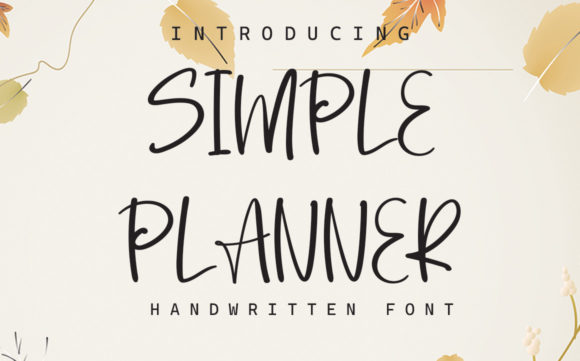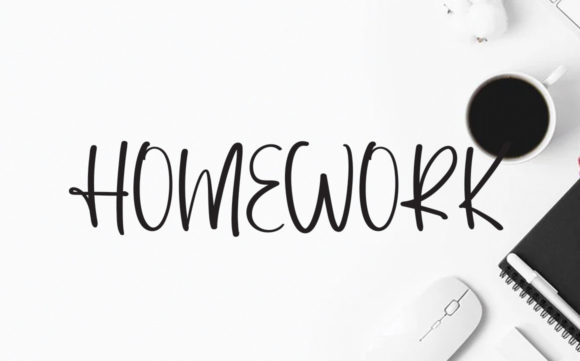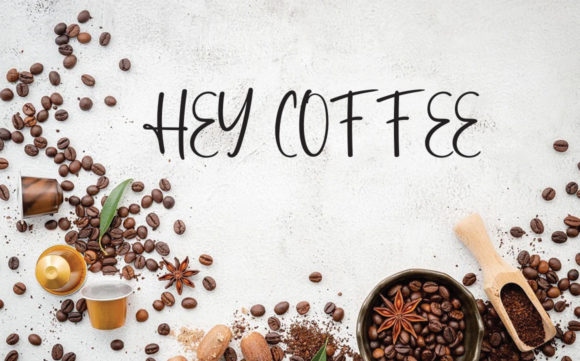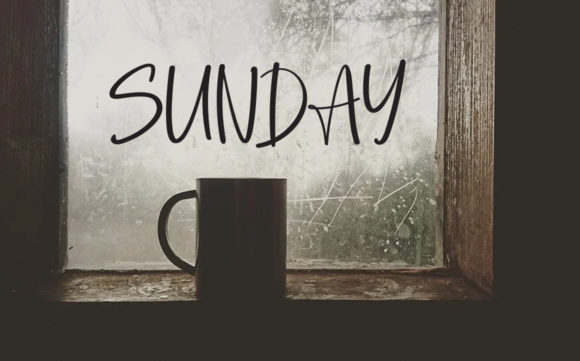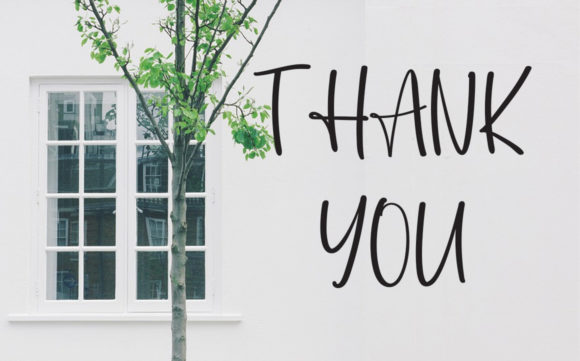
Simple Planner Font
About Simple Planner Font
“Simple Planner” is more than just a font; it’s a versatile tool that adds elegance and flair to any project. With its flowing handwritten style, this font is perfect for a wide range of design needs, from wall displays to wedding invitations, social media logos to product packaging.
One of the most striking features of “Simple Planner” is its smooth lines and graceful curves. These elements give the font a sense of sophistication and charm, making it stand out in any context. Whether you’re creating advertisements, labels, or photography watermarks, this font will help your designs captivate and inspire.
Wedding invitations are a perfect example of where “Simple Planner” shines. Its flowing script adds a touch of romance and elegance, setting the tone for the special day. Similarly, for social media logos, the font’s versatility allows it to adapt to different platforms while maintaining a cohesive brand identity.
In the realm of product packaging and design, “Simple Planner” adds a sense of refinement and professionalism. Its clean lines and readability make it ideal for conveying important information while still maintaining a stylish appearance. From labels to product designs, this font elevates the overall aesthetic of any project.
Photography and watermarks are another area where “Simple Planner” excels. Its fluid strokes add a personal touch to images, enhancing their visual appeal and making them more memorable. Whether used for professional photography or personal projects, this font adds a unique flair to any composition.
Invitations and stationery also benefit from the elegant simplicity of “Simple Planner.” Whether it’s for a formal event or a casual gathering, this font sets the tone perfectly with its timeless charm. Its versatility allows it to adapt to any occasion, from weddings to birthday parties, ensuring that your invitations leave a lasting impression.
Overall, “Simple Planner” is a must-have font for anyone looking to add sophistication and style to their designs. With its flowing handwritten style and versatile application, this font is sure to become a valuable asset in any designer’s toolkit.